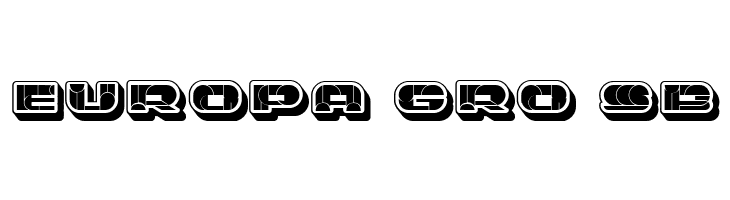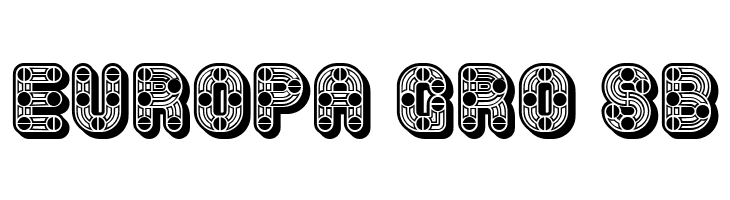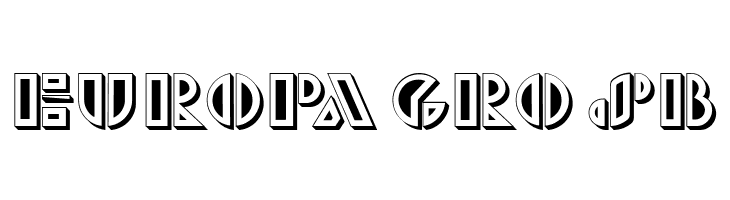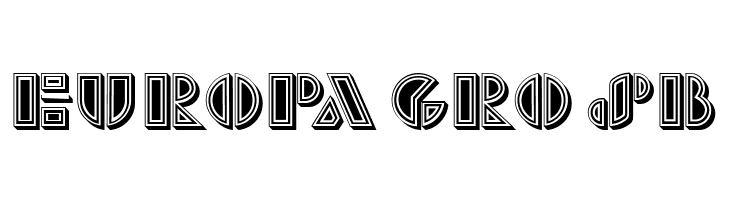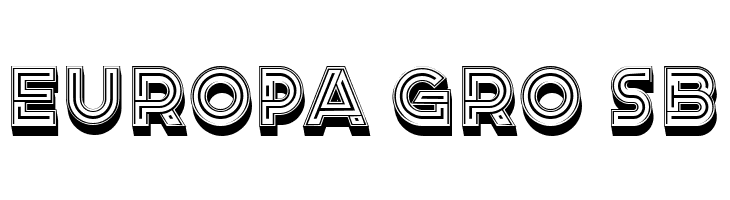
Extravagant Pete Font
An ornate and decorative font with intricate swirls and flourishes.
London 2 Extravagant Regular Font
A bold, three-dimensional decorative font with geometric shapes and shadowing.
Baked Snails Extravagant Light Regular Font
Font by Vladimir Nikolic
A bold, decorative font with rounded shapes and intricate patterns.
Computer Extravagant Regular Font
Font by Vladimir Nikolic
A bold, decorative font with concentric circles and a playful, extravagant style.
Baked Snails Extravagant Regular Font
Font by Vladimir Nikolic
A bold, playful font with circular, gear-like embellishments on each character.
Portfolio 3D Extravagant Flat Regular Font
Font by Vladimir Nikolic
A bold, 3D font with a flat, extravagant style and geometric shapes.
Alcoholic Extravagant Regular Font
Font by Vladimir Nikolic
A bold, decorative font with geometric and intricate designs.
Rockefeller 3D Extravagant Flat Regular Font
A bold, 3D font with a playful and extravagant style, featuring thick outlines and rounded edges.
Furious Ride Extravagant Regular Font
Font by Vladimir Nikolic
A bold, decorative font with intricate geometric patterns and a modern, playful style.
Pancake Extravagant Inverted Regular Font
A bold, decorative font with a layered, three-dimensional effect and tight character spacing.
Tubes Extravagant Regular Font
Font by Vladimir Nikolic
A bold, decorative font with a tubular, futuristic design.
Bathroom Extravagant Regular Font
Font by Vladimir Nikolic
A bold, decorative font with geometric patterns and a three-dimensional effect.
Bathroom Extravagant Light Regular Font
Font by Vladimir Nikolic
A decorative, multi-layered font with a bold, geometric style.
Memory Extravagant Regular Font